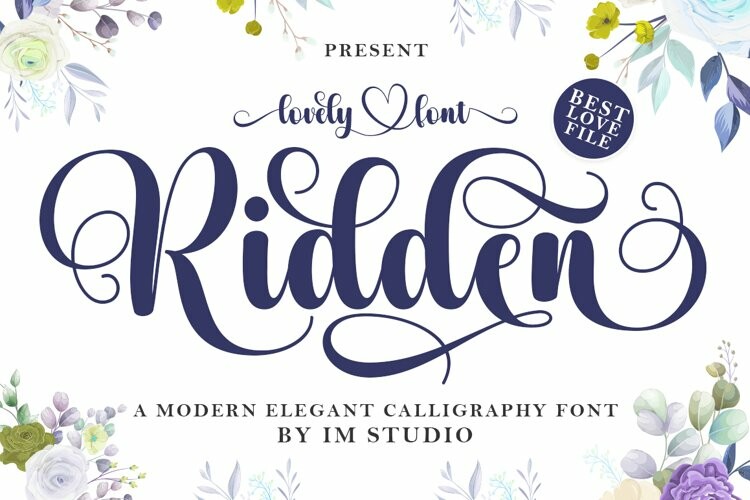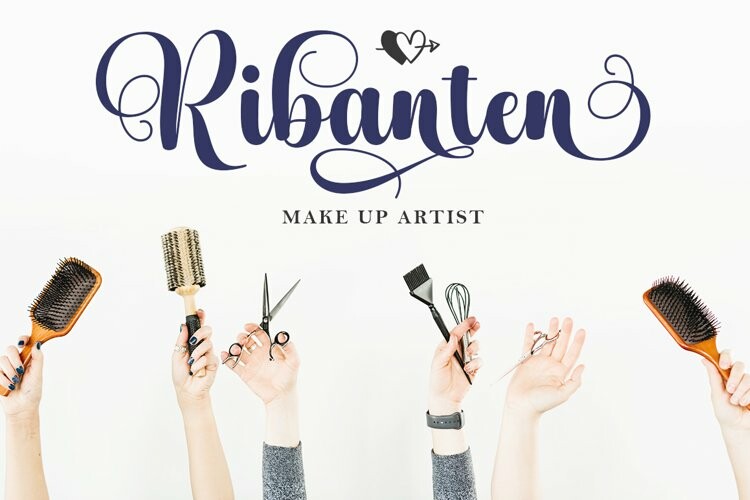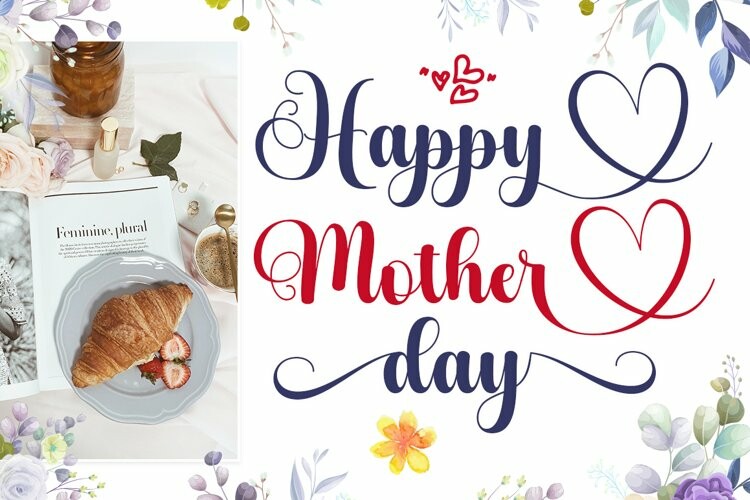
Ridden Font
Ridden FontRidden A font decorated with leaves and flowers. This font is very cute and stylish.
Ridden Equipped with a glyph, Ridden is perfect for branding projects, home appliance design, product packaging, used in business cards, invitation cards, etc. Simply as a stylish text overlay onto a background image or anything else that needs a touch of elegance.